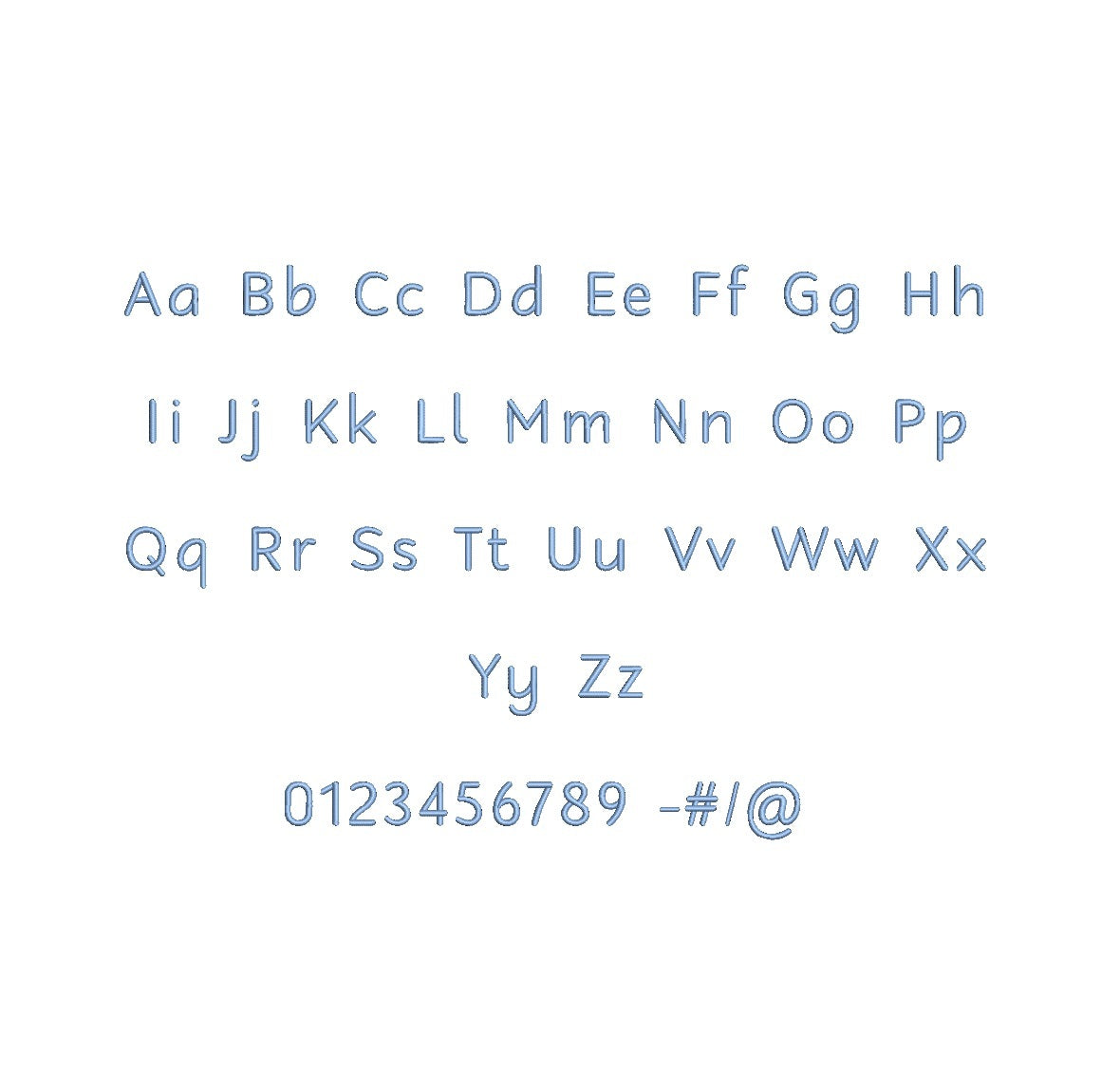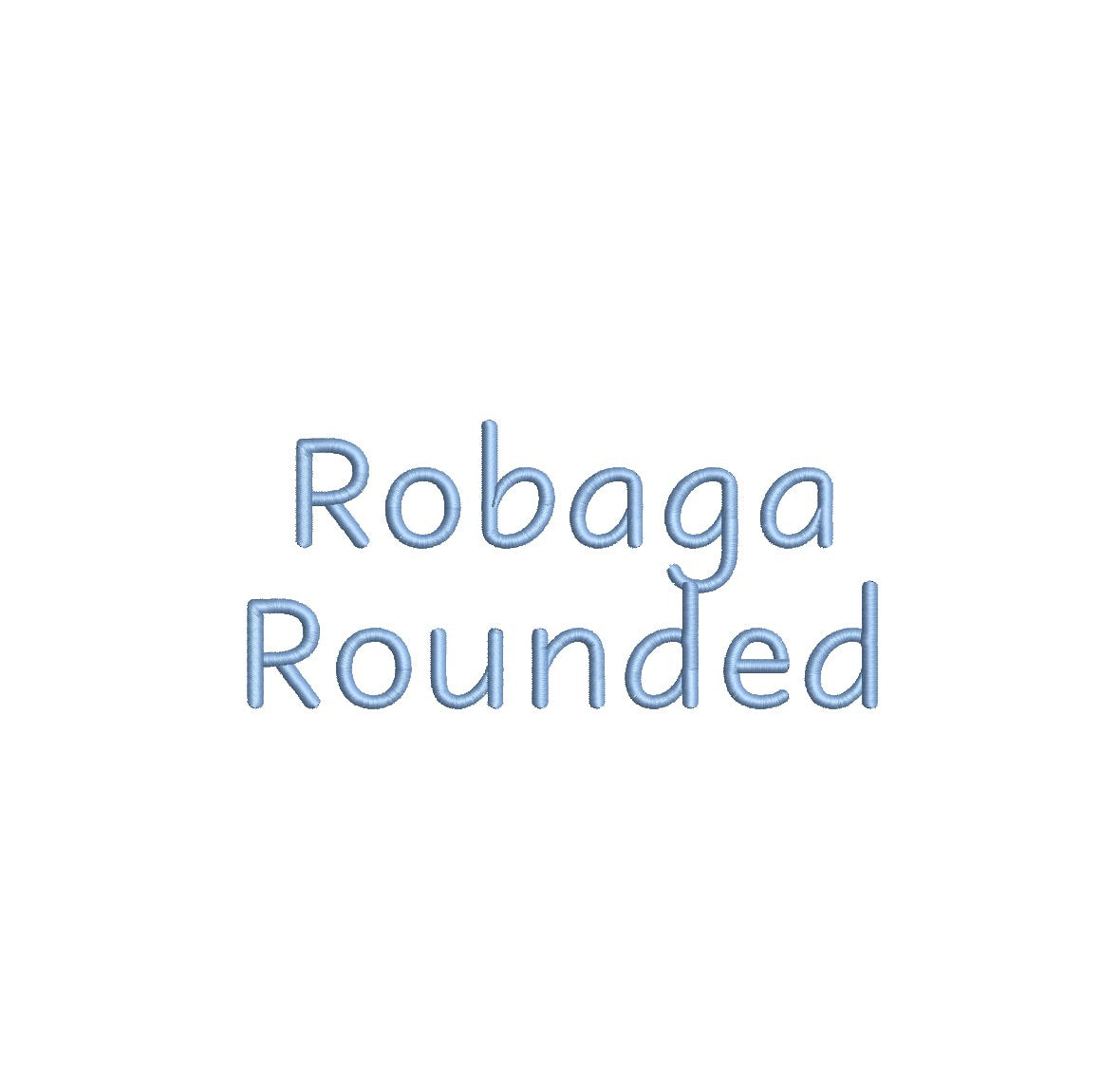
Introducing Robaga Rounded Regular ESA Font, the perfect choice for impeccable embroidery! Designed for seamless compatibility with Wilcom Studio e4.5.6 and Hatch 3 versions and beyond, this font enhances your creative journey. Elevate your embroidery projects with Robaga Rounded's precision, versatility, and unique rounded style. It's ideal for logos, monograms, and text elements, catering to both professionals and passionate hobbyists. Unlock a world of design possibilities and let your creations stand out with unmatched flair. Don't miss the opportunity to enhance your embroidery – acquire Robaga Rounded today and experience excellence in every stitch, making your designs truly extraordinary!